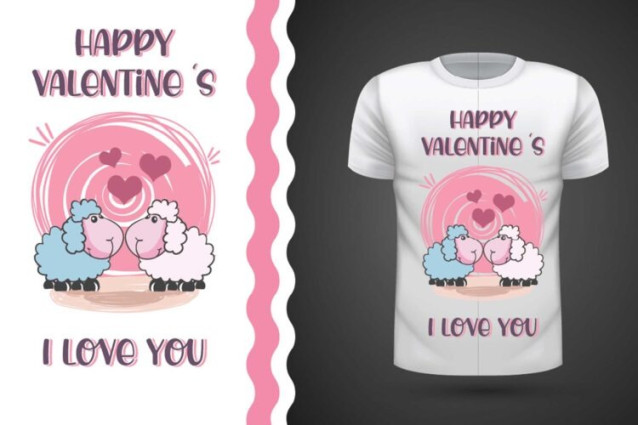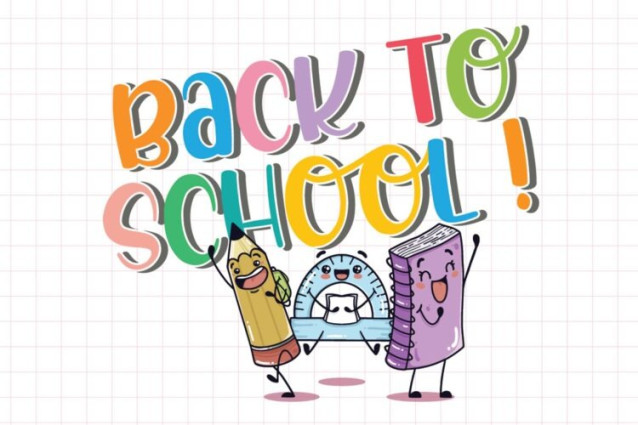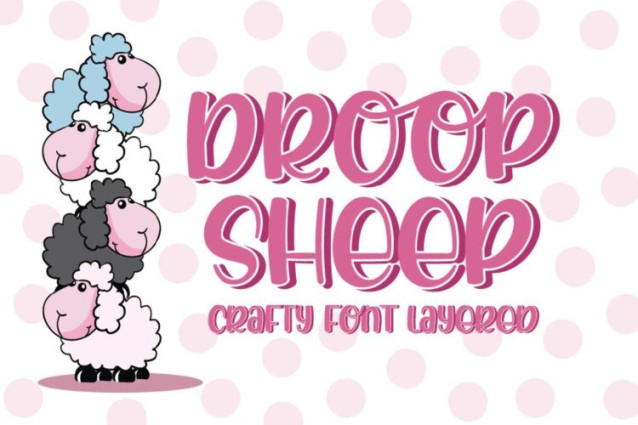
Droop Sheep Font
Droop Sheep Font – Crafty font layered. Droop Sheep good for kids theme, Crafted, logotype, label, badge, headline, packaging and any more.